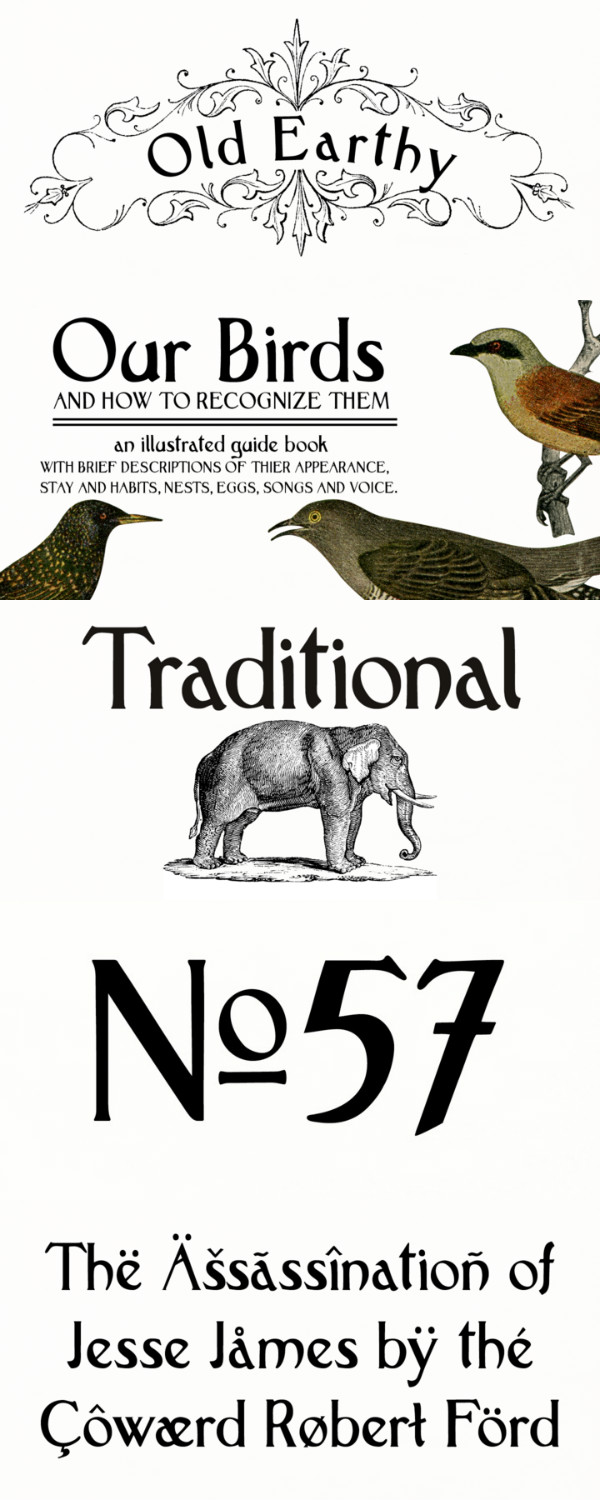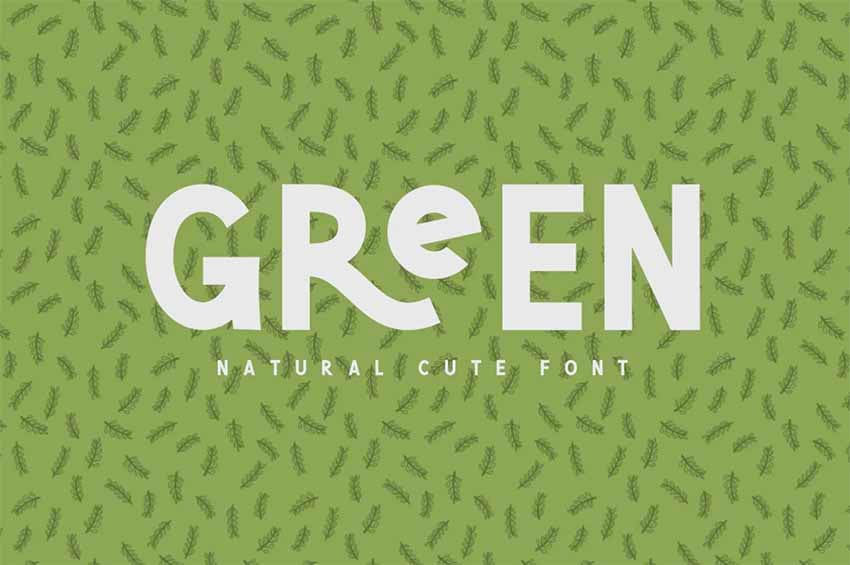
Earthy Fonts Are The Latest Trend In 2023
Over the last few years, there has been an increase in earthy font styles. Earthy fonts are inspired by the colors and shapes of nature, and they bring a natural, organic feel to any design. In 2023, they are becoming increasingly popular as a way to add a touch of nature to any design. Whether you're creating a logo, website, or something else, earthy fonts can help you achieve the perfect look.
What Are Earthy Fonts?
Earthy fonts are a type of font created to mimic the colors and shapes of nature. They are usually composed of curves and soft edges, creating a natural and organic feel. These fonts are often used as a way to incorporate nature into a design without having to use real-life elements. They also provide a unique look that is sure to stand out from the crowd.
How to Use Earthy Fonts in 2023
As earthy fonts continue to gain popularity in 2023, there are a few different ways you can use them in your designs. One of the most common ways is to create a logo using an earthy font. This is a great way to create a unique and memorable logo that captures the essence of nature. You can also use them to create website headers, posters, and other designs that need a touch of nature.
Tips for Using Earthy Fonts
When using earthy fonts, there are a few tips you should keep in mind. First, make sure that the font you choose is legible. You want to be able to read the text clearly and make sure it stands out from the rest of the design. Second, choose a font that compliments the design. Earthy fonts should be used to enhance the design, not overpower it. Finally, make sure the font fits the theme of your design. If it doesn't, it may not have the desired effect.
Earthy fonts are a great way to add a touch of nature to any design. In 2023, they are becoming increasingly popular and are a great way to create a unique and memorable design. When using these fonts, make sure to choose one that is legible, compliments the design, and fits the theme. With these tips, you can make sure your earthy font design stands out from the rest.